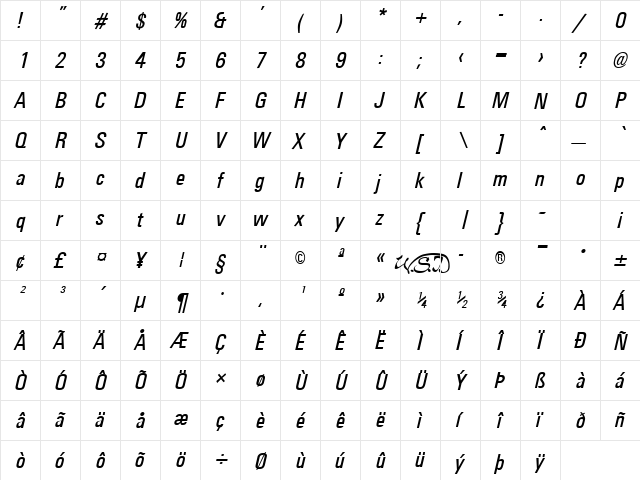
Universal Condensed Italic Font Preview
Design Context for Universal Condensed Typeface
Universal Condensed takes a measured approach to typography — its balanced proportions and neutral character make it a reliable workhorse for both digital and print work. The slanted form adds forward momentum and visual energy. The condensed width makes it efficient for tight spaces without sacrificing legibility.
Pro Tip: Use Universal Condensed for emphasis, pull quotes, and subheadings where its slanted energy can add rhythm to the layout.